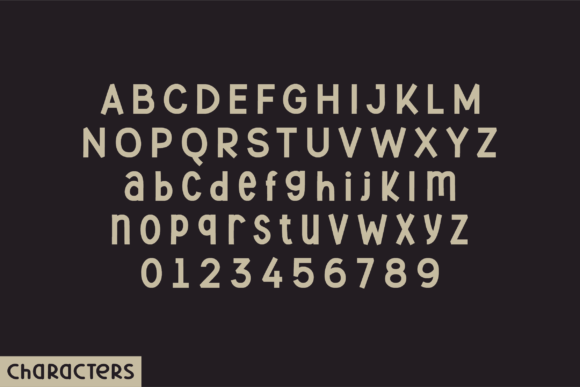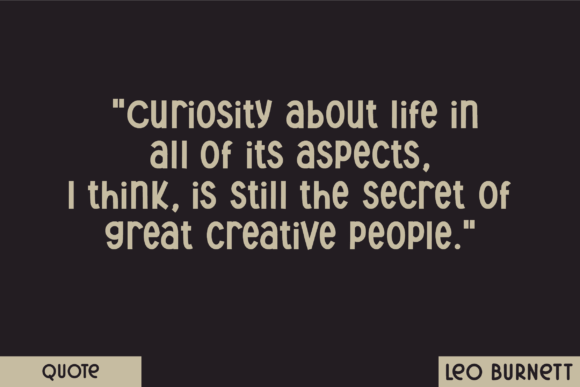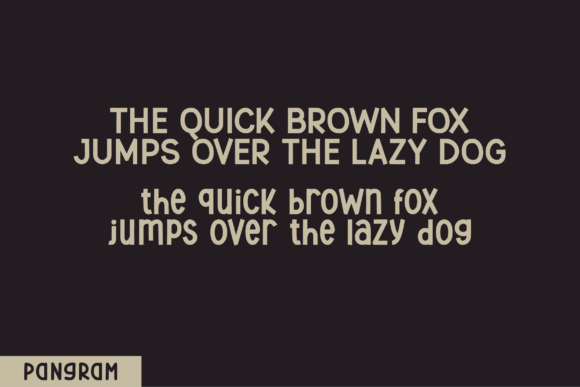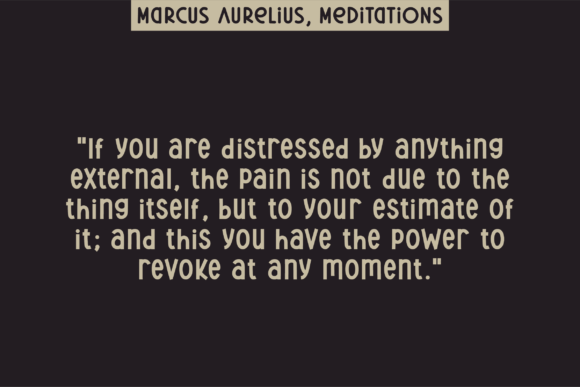
Introducing Edamame Font: The Unique Sans Serif for Creative Designs
In the world of typography, fonts play a crucial role in making a design stand out. For designers and crafters, finding the perfect font that adds a touch of personality to their work can be a daunting task. This is where Edamame Font comes in – a natural sans serif font that has been gaining attention for its unique characteristics. In this article, we’ll dive into the features of Edamame Font and explore how it can elevate your designs.
The Story Behind Edamame Font
Edamame Font is a sans serif font that has been crafted with precision and attention to detail. What sets it apart is that it was created without changing a single node in each character’s indentation. This approach has resulted in a font that is not only visually appealing but also remarkably unique. The font’s natural and effortless look makes it perfect for a wide range of design applications.
Key Features of Edamame Font
- Unique Indentation: As mentioned earlier, Edamame Font’s distinctive feature is that it retains its natural indentation, giving it an organic feel.
- Sans Serif: The font’s sans serif design makes it clean, modern, and highly legible.
- Versatility: Edamame Font is suitable for various design projects, including quotes, notes, tees, and product design.
Edamame Font is an excellent addition to any designer’s or crafter’s toolkit. Its unique features make it an ideal choice for:
- Quote Designs: Add a touch of personality to your quotes with Edamame Font’s distinctive style.
- Note-taking: Use Edamame Font to add a creative twist to your notes and journals.
- T-Shirt Designs: Create eye-catching tees with Edamame Font’s modern and clean design.
- Product Design: Incorporate Edamame Font into your product designs to give them a unique and natural look.
Why Choose Edamame Font?
With so many fonts available, why choose Edamame Font? Here are a few reasons:
- Uniqueness: Edamame Font’s natural indentation sets it apart from other fonts.
- Legibility: The font’s sans serif design ensures high legibility, making it suitable for a wide range of applications.
- Versatility: Edamame Font can be used for both digital and print designs.
Edamame Font is a unique and versatile sans serif font that can add a touch of personality to your designs. Its natural indentation and clean design make it perfect for a wide range of applications, from quotes and notes to tees and product design. Whether you’re a designer or crafter, Edamame Font is definitely worth considering for your next project.